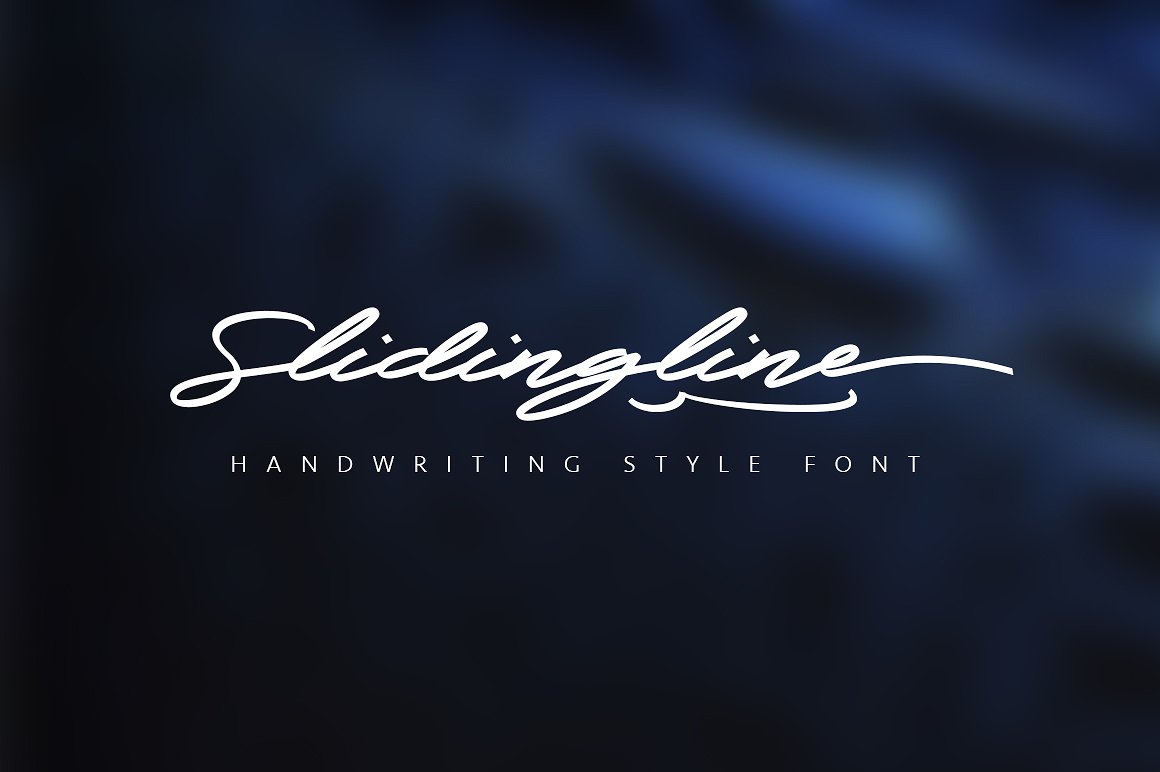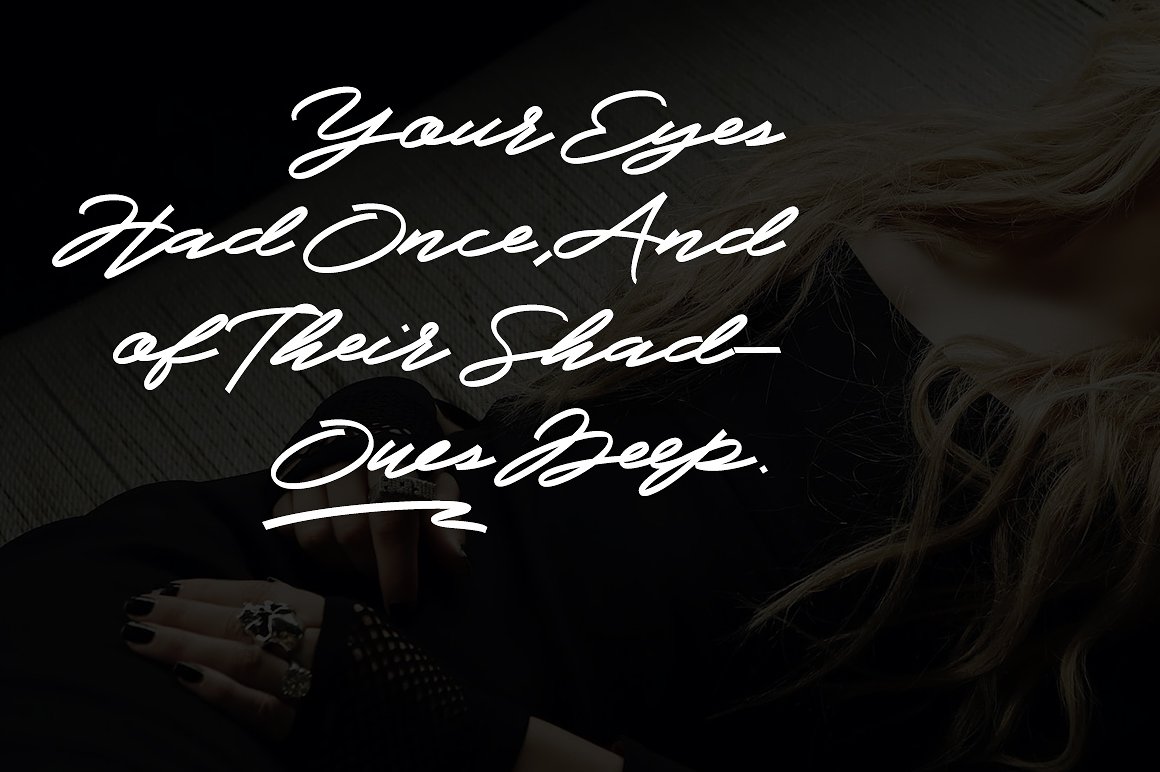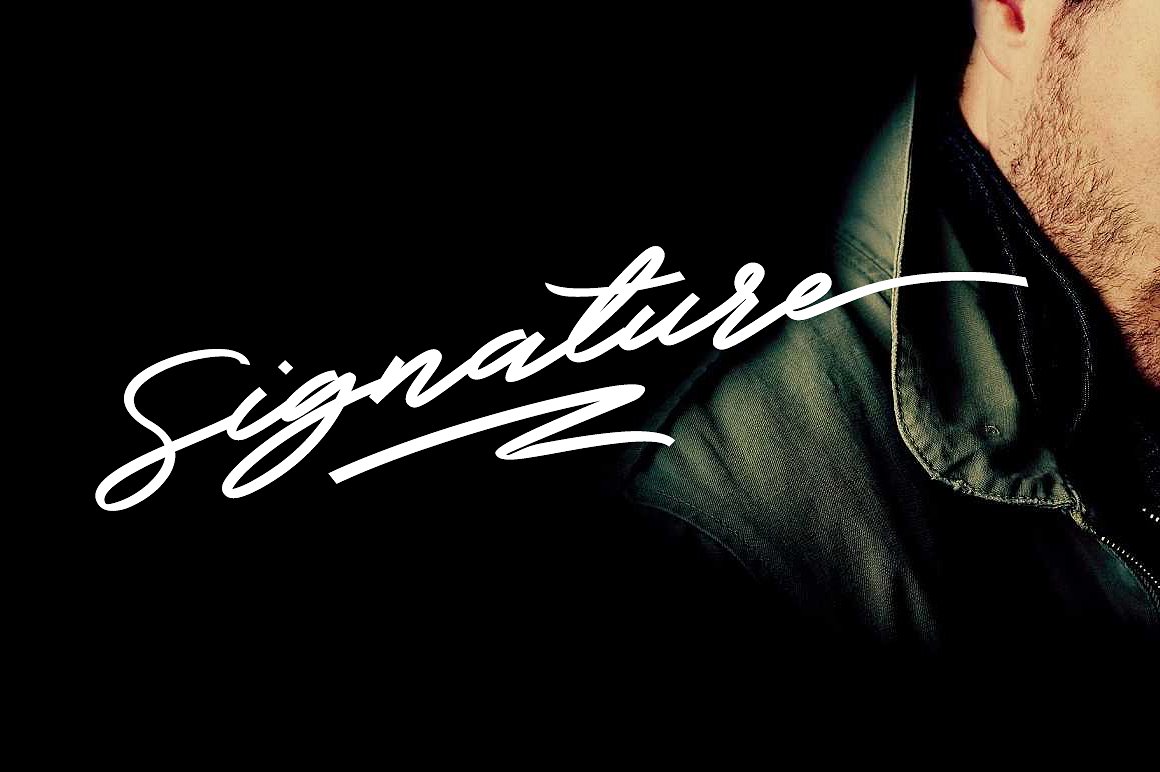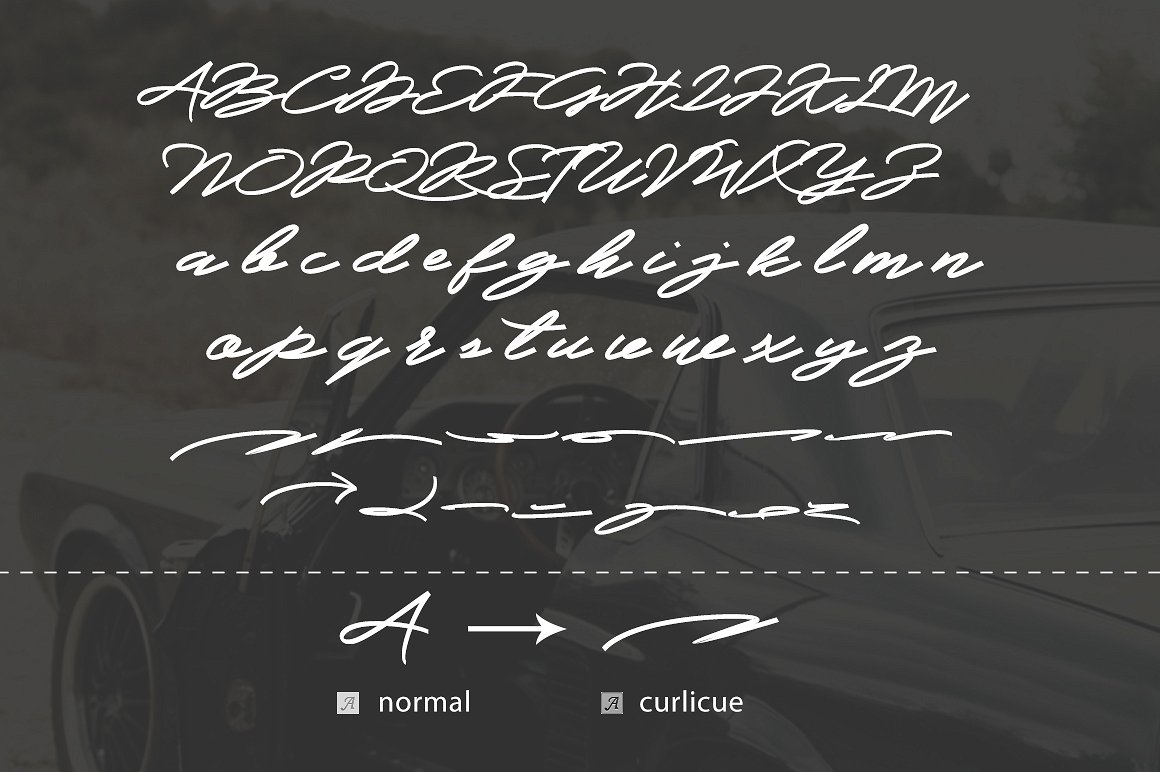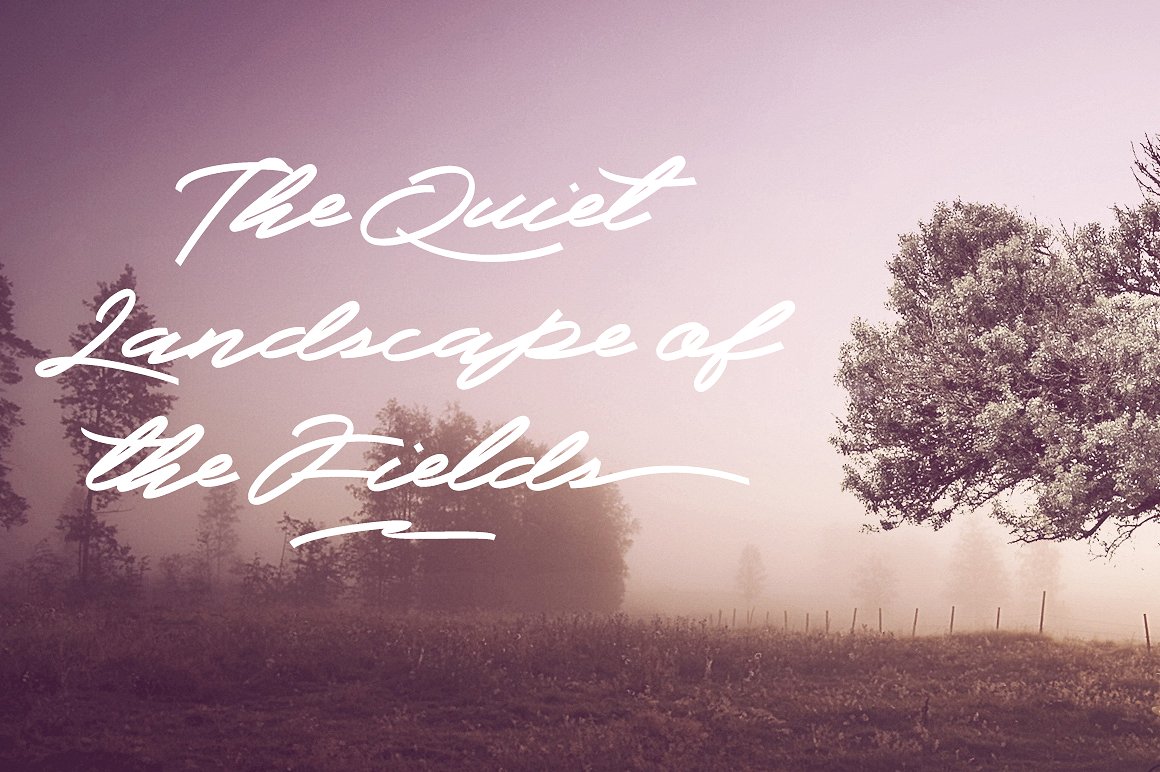
Slidingline Script Typeface
Slidingline Script is a font of handwriting brush strokes, it is not fancy, but very simple, smooth, besides the normal shape, also contains 26 underline font, you only need to select the Curlicue panel (Swash) in the font panel, you can switch it. If you don’t use it, we also provide AI format. hope you like it, thank you.